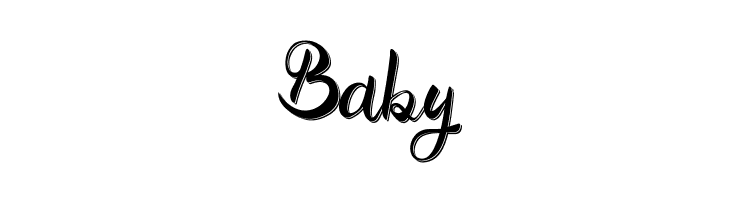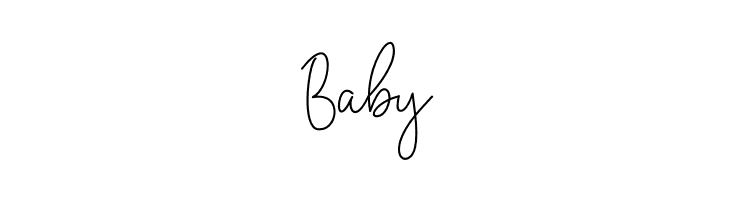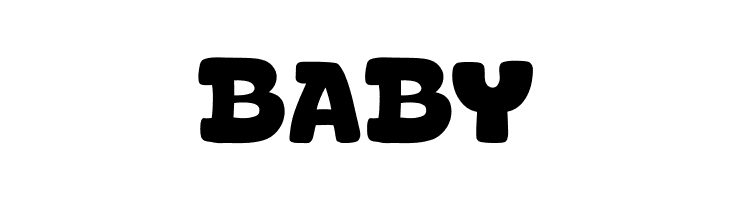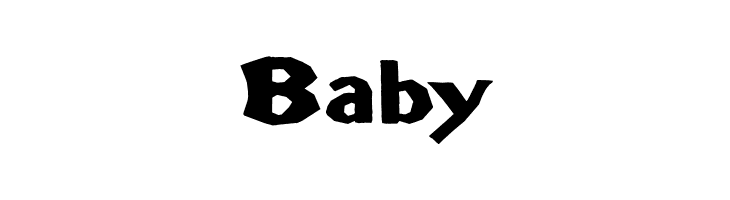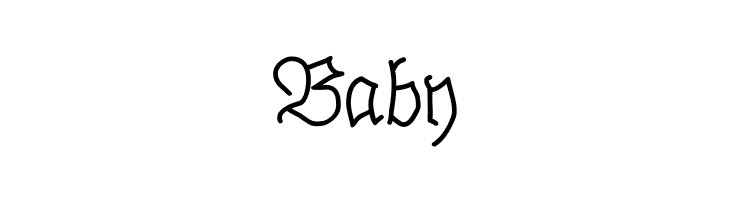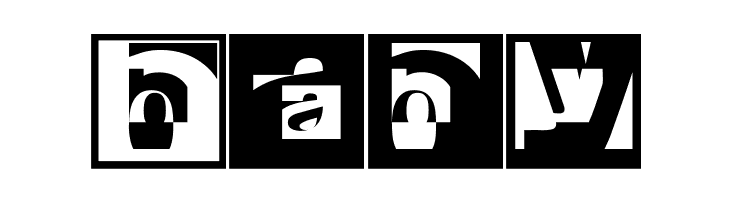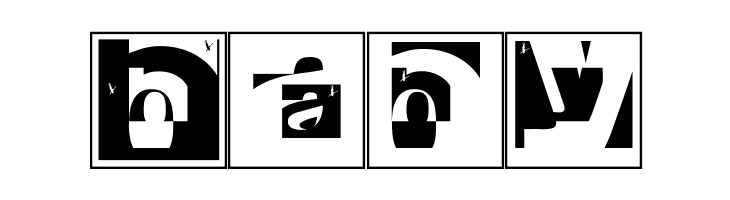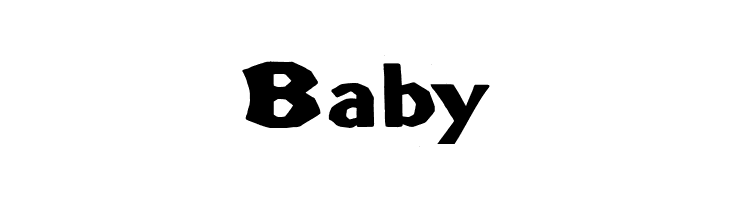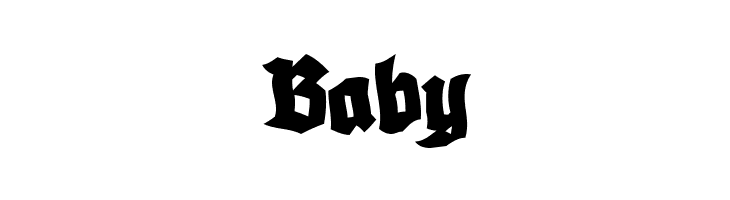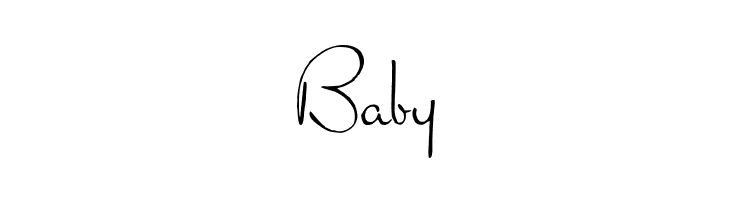
A bold, retro-inspired font with rounded, chunky characters.
A bold, rounded font with a playful, modern style.
A modern, elegant handwritten font with flowing, cursive characters.
A modern, elegant script font with flowing, handwritten characteristics.
A flowing, elegant script font with a sophisticated handwritten style.
A bold, playful font with rounded, bubbly characters.
A bold, cursive font with decorative loops and high contrast, perfect for eye-catching designs.
A sharp, elongated font with high contrast and Art Deco influences.
A bold, playful font with rounded edges and a retro-modern style.
A bold, rounded font with a playful and friendly style.
A fragmented, edgy font with sharp angles and irregular shapes.
A playful, bold, and hand-drawn font with a casual and friendly vibe.
A bold, angular serif font with a gothic influence and high contrast.
A bold, geometric font with a playful and decorative style.
A bold, geometric font with sharp angles and thick strokes, perfect for striking designs.
A bold blackletter font with sharp, angular lines and a gothic style.
A bold, brush-style font with a playful, hand-drawn appearance.
A bold, abstract font with geometric and fragmented letterforms.
A decorative, hand-drawn font with a gothic flair and flowing, cursive-like characters.
A bold, decorative font with a hand-drawn, medieval-inspired style.
A decorative, hand-drawn font with a gothic and calligraphic influence.
A bold, hand-carved font with a linocut print aesthetic.
A bold, rugged font with a handcrafted, vintage appearance.
A bold, fragmented sans-serif font with a modern, edgy aesthetic.
A bold, fragmented font with geometric shapes and high contrast, perfect for artistic projects.
A bold, blackletter-style font with sharp, angular lines and a medieval aesthetic.
A fluid and elegant script font with a handwritten calligraphic style.
A modern cursive font with elegant, flowing strokes.
A playful, bold font with rounded edges and thick strokes, perfect for creative projects.